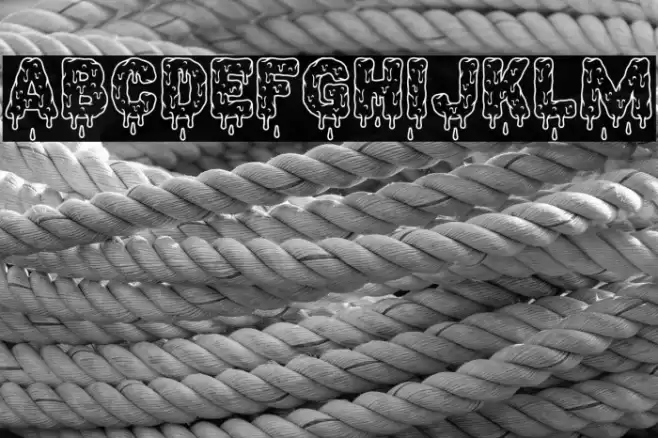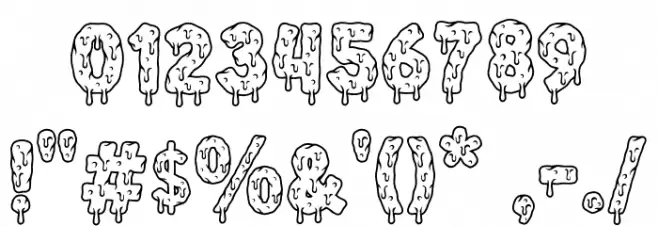
Gloober Line Font
Gloober Line Description
This font features a unique, playful design with each character appearing as if it's melting or dripping. The letters have a bold, cartoonish style that gives off a fun and quirky vibe, making it ideal for creative projects. The characters are outlined with a thick black line, enhancing their visibility and adding a touch of boldness. The dripping effect is consistent across all letters, numbers, and special characters, creating a cohesive and thematic appearance. This font is perfect for projects that require a whimsical or spooky touch, such as Halloween-themed designs, children's book covers, or playful branding materials.
- Font: Gloober Line
- Proposed Projects: Ideal for Halloween designs, children's books, playful branding, and creative posters.